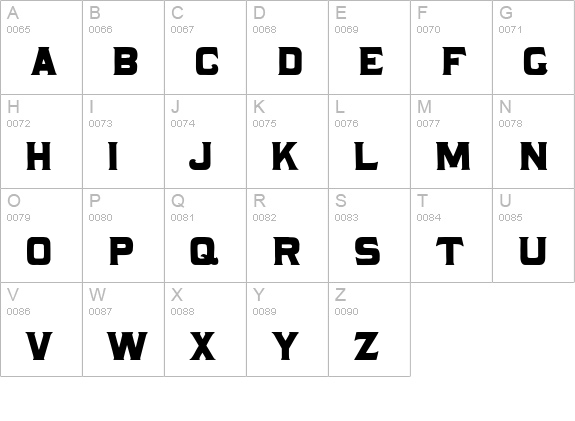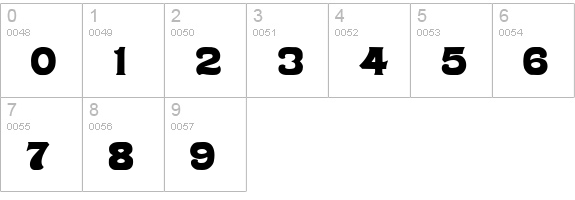
Forsythe HPLHS Font Details
The Forsythe HPLHS font is a meticulously crafted typeface that reflects a perfect blend of sophistication and elegance. Designed by the talented team at HPLHS, this font exudes a timeless appeal with its clean lines and exquisite details. The Forsythe HPLHS font is ideal for adding a touch of classic beauty to your projects, whether for branding, graphic design, or any creative endeavor. What sets the Forsythe HPLHS font apart is not only its stunning aesthetics but also its versatility. This font can effortlessly adapt to various design needs, from formal invitations to modern website layouts. Its readability and legibility make it a reliable choice for any text-heavy content. The best part? The Forsythe HPLHS font is available for free download at FontsMarket.com. Now you can enhance your designs with this premium font without breaking the bank. Don't miss out on the opportunity to elevate your projects with the timeless charm of the Forsythe HPLHS font.